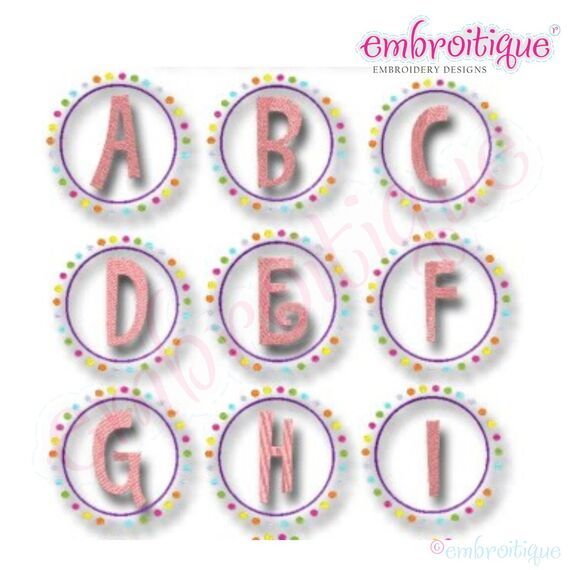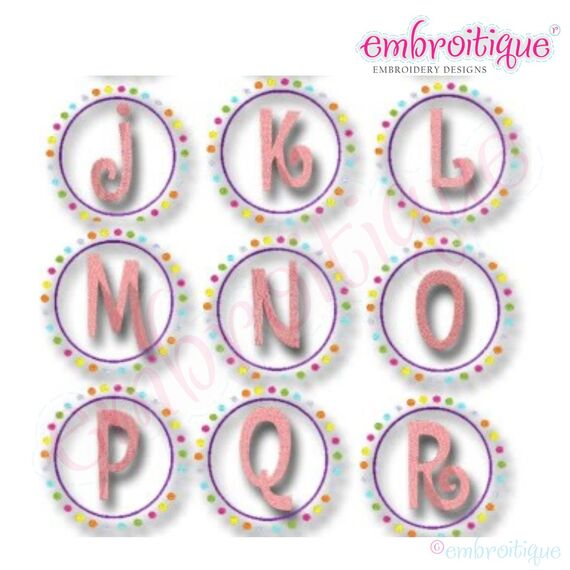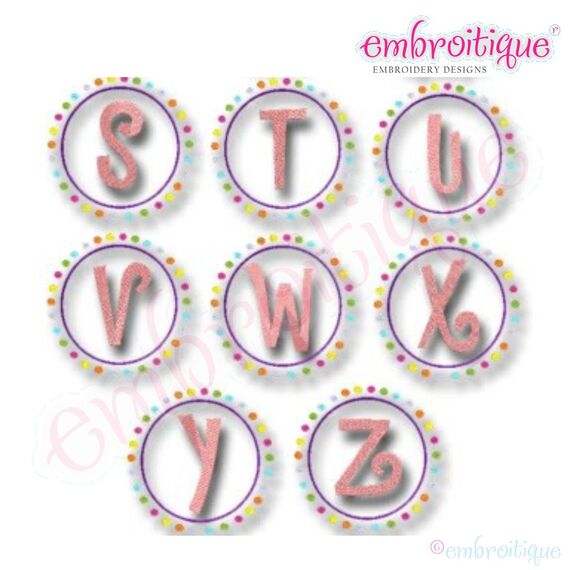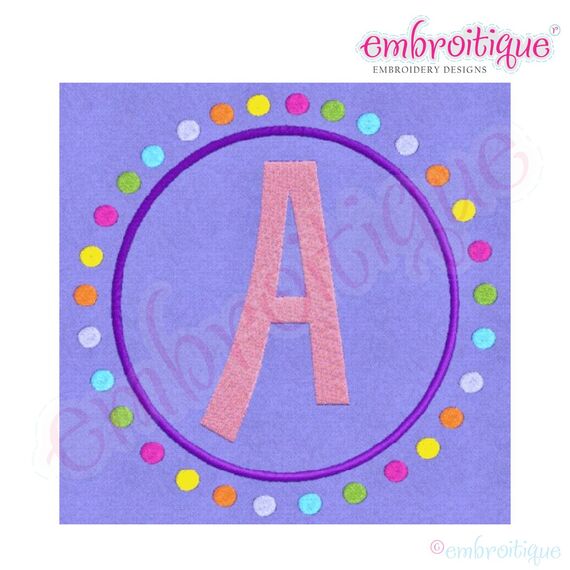
Polka Dot Frame with Letters Set
This whimsical little font is paired perfectly in this cute polka dot frame and will enhance any project. What a cute way to embellish your next personalized item.